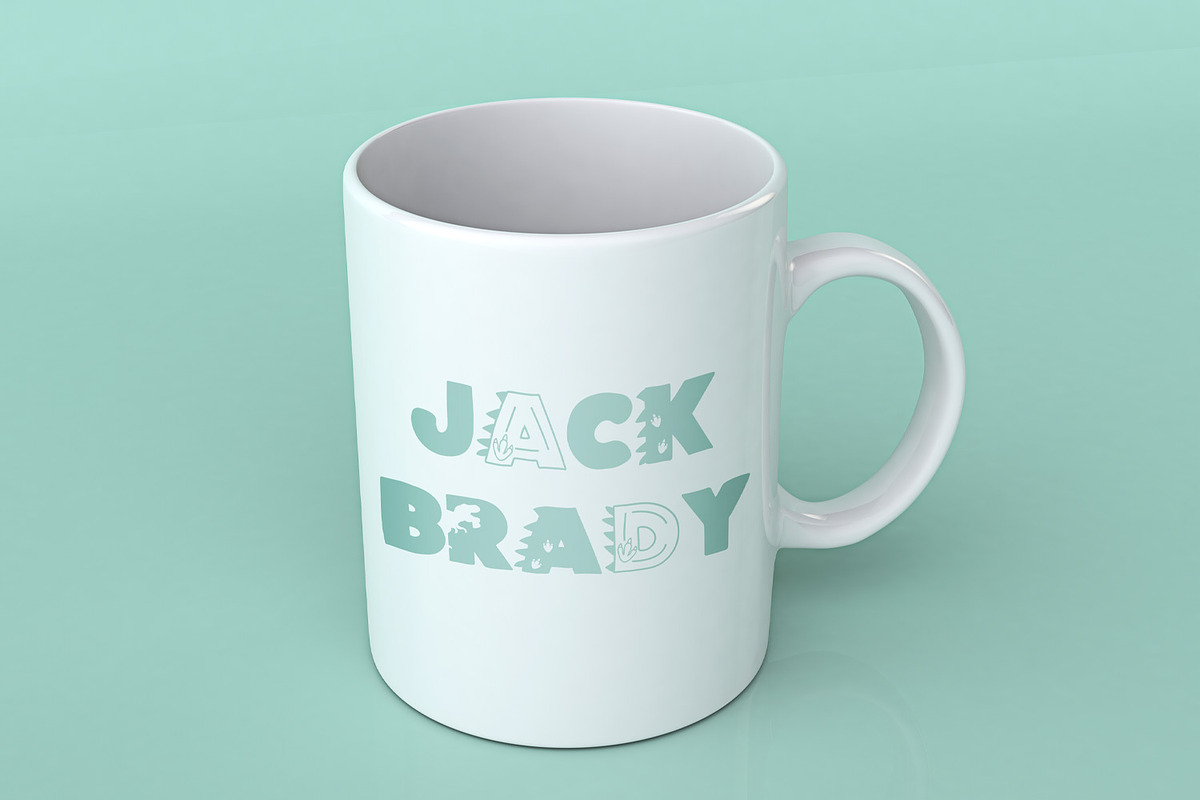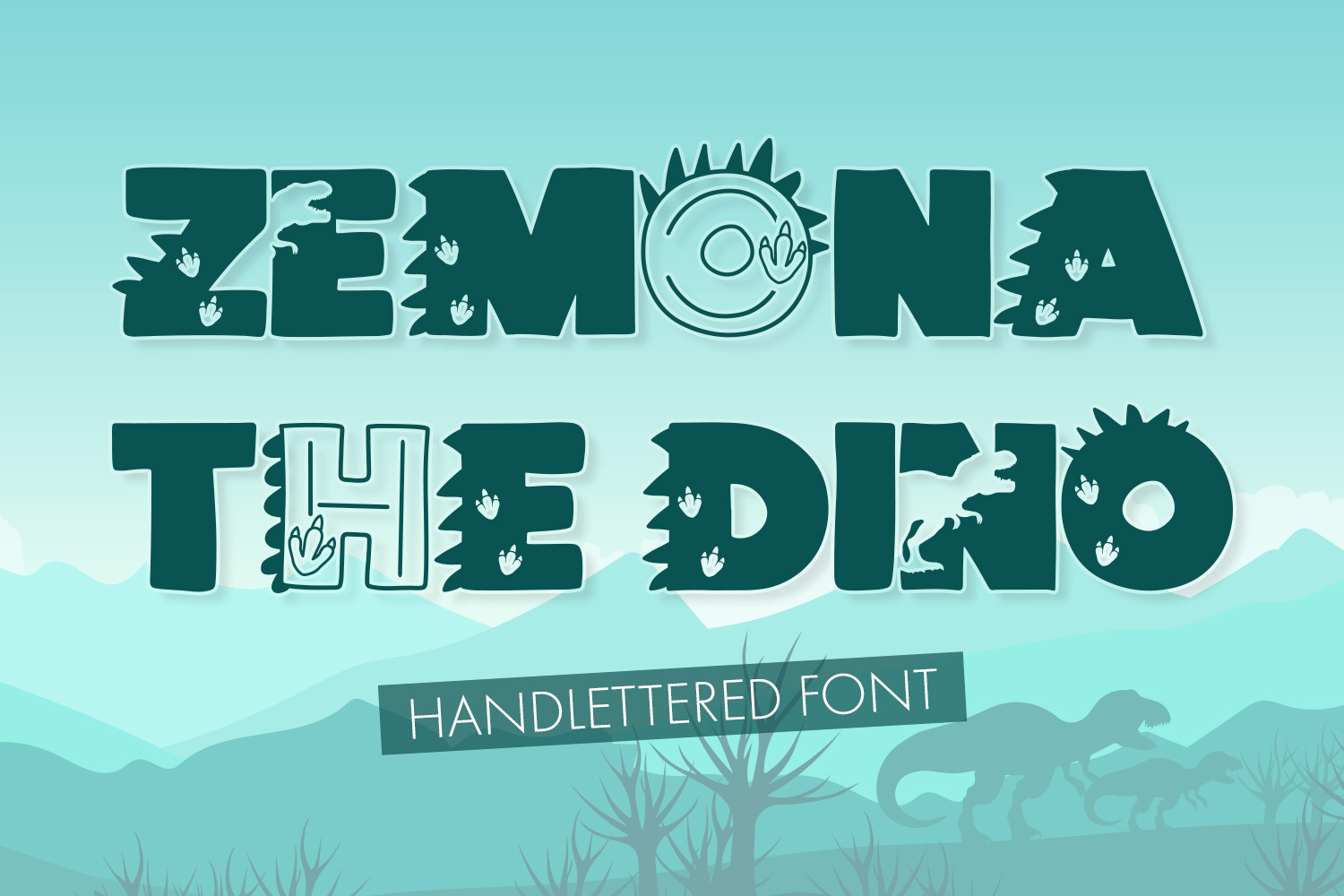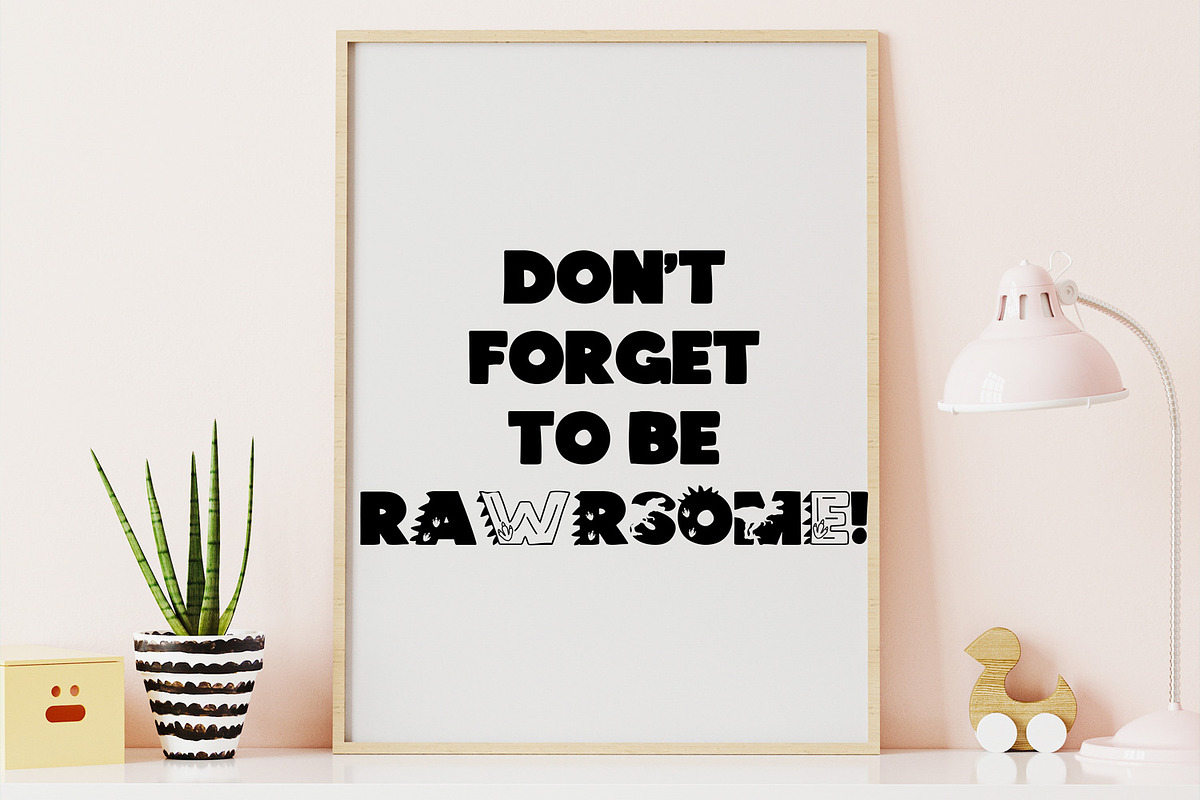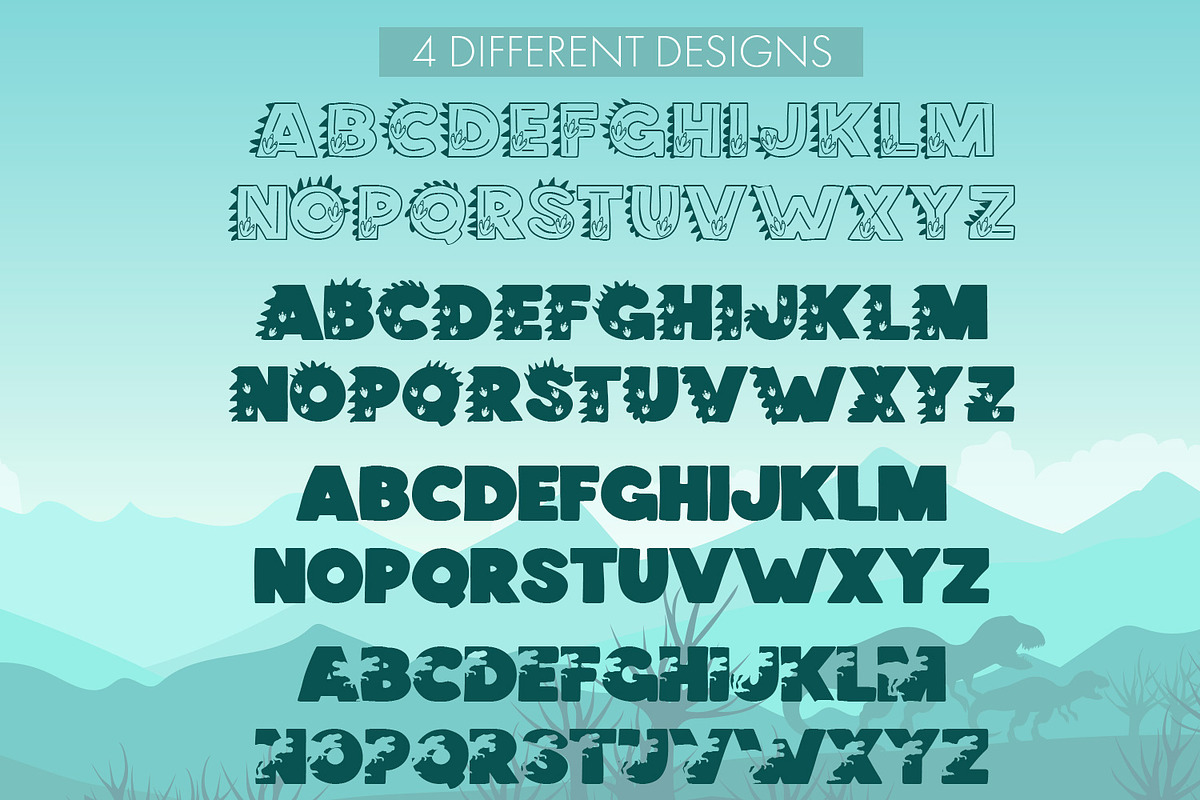
Zemona The Dino A Dinosaur Font
Unleash prehistoric charm with 'Zemona the Dino' font! This typeface roars with creativity, offering four distinct uppercase letter designs adorned with adorable dinosaur motifs. Perfect for adding a playful touch to your projects. Embrace the dino-inspired aesthetic and make your designs roar with character!